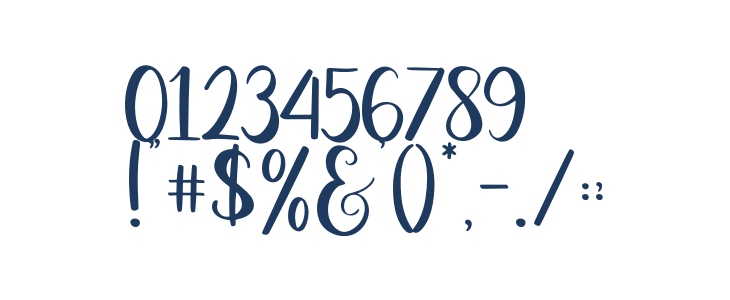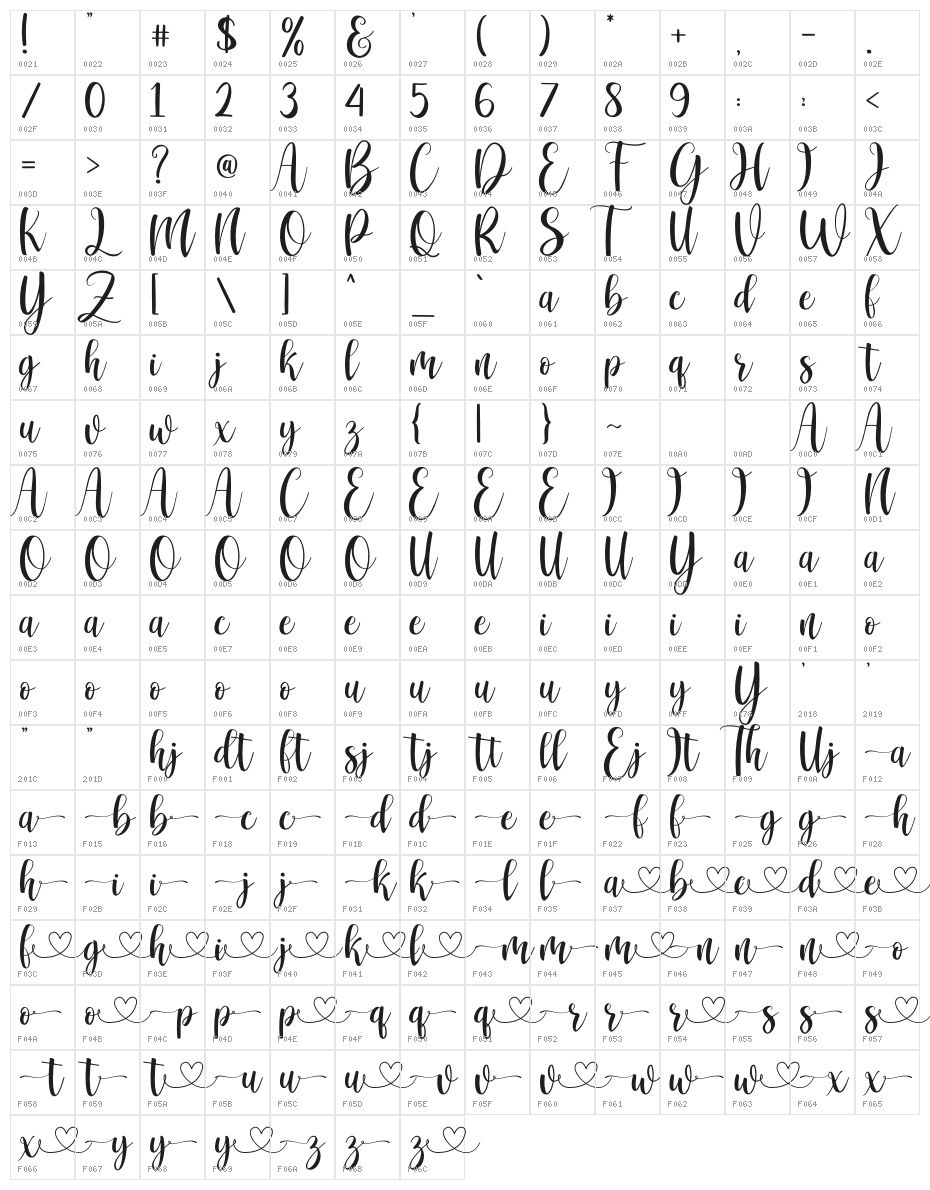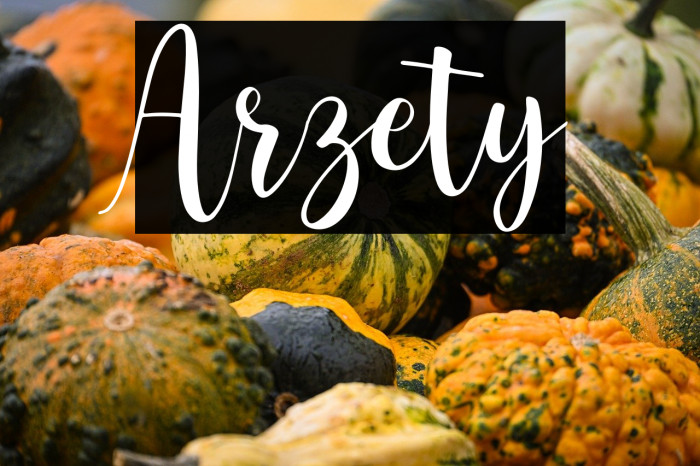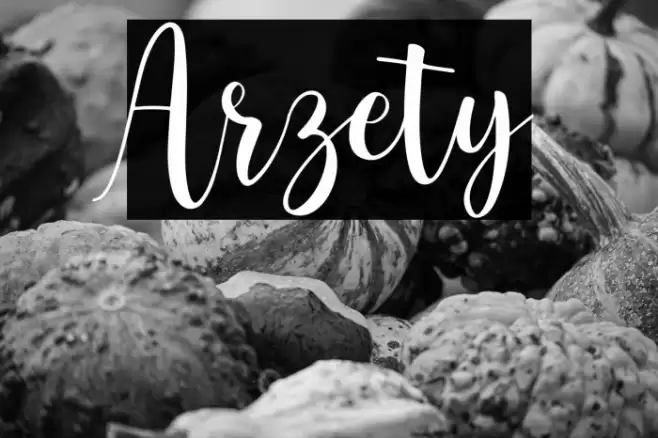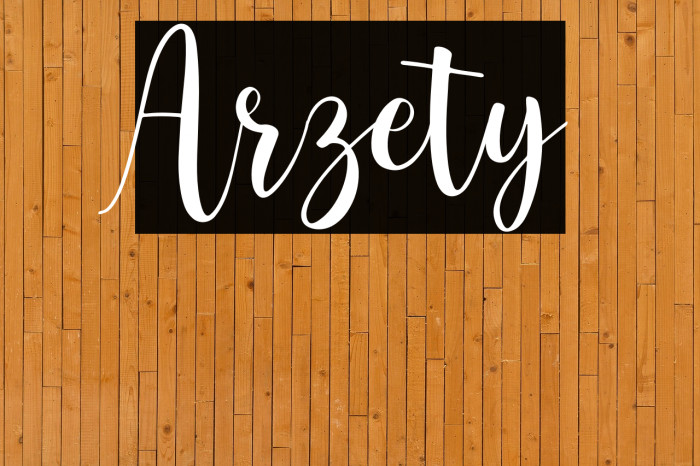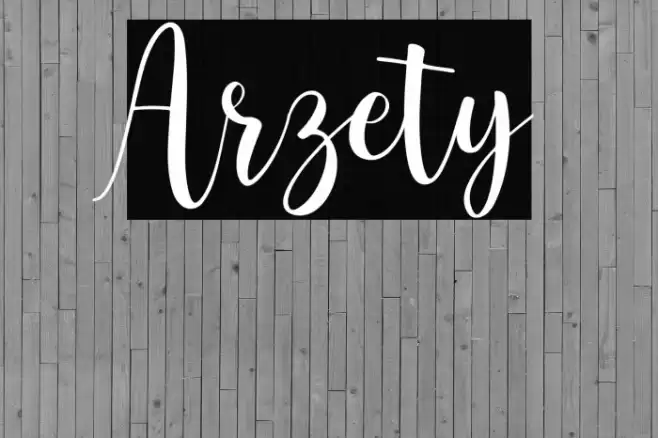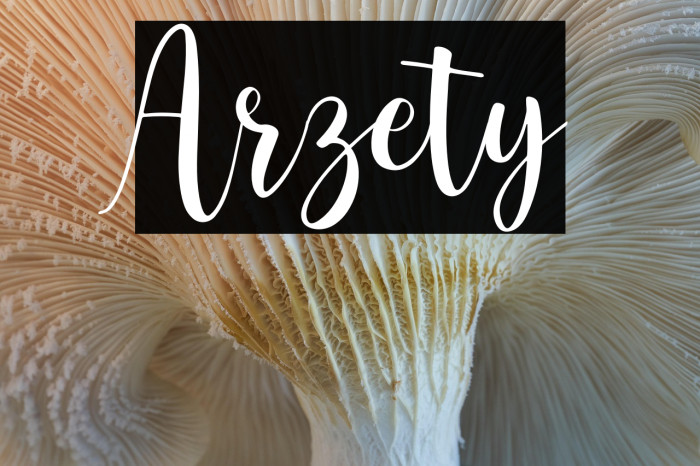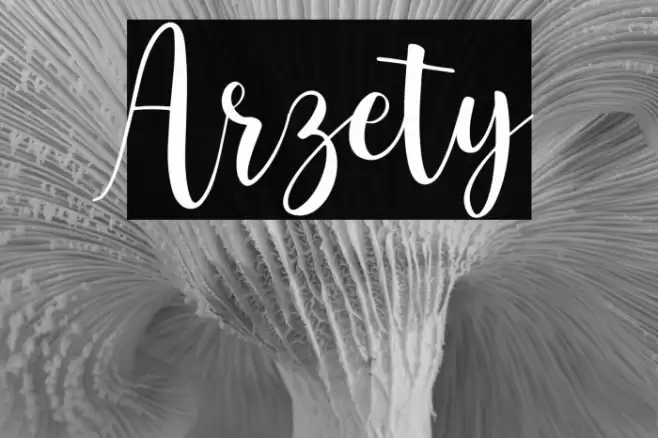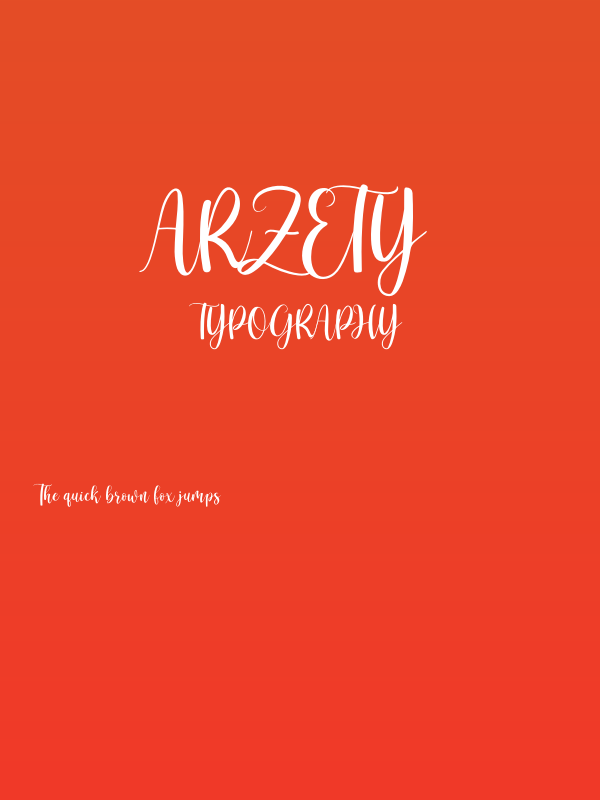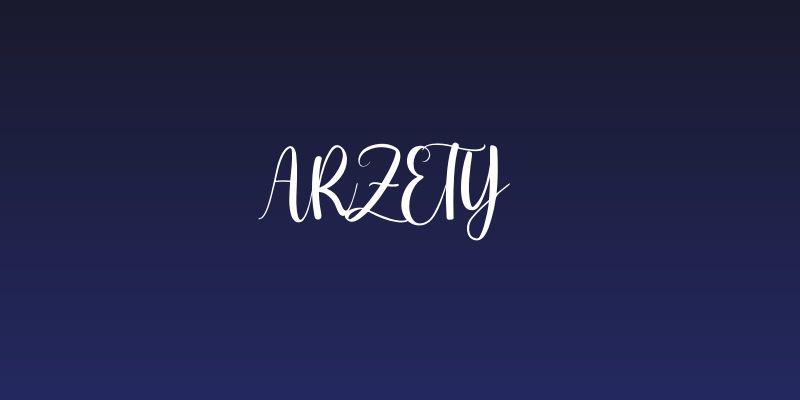
Arzety Font
Arzety Description
This font features an elegant and flowing script style, characterized by its smooth, cursive strokes and artistic flair. The uppercase letters are bold and sweeping, with a distinct calligraphic influence, while the lowercase letters maintain a consistent fluidity that enhances readability. The numerals are stylishly integrated, maintaining the script's overall aesthetic. Special characters are thoughtfully designed to complement the font's sophisticated appearance. This font exudes a sense of elegance and creativity, making it suitable for a variety of design applications.